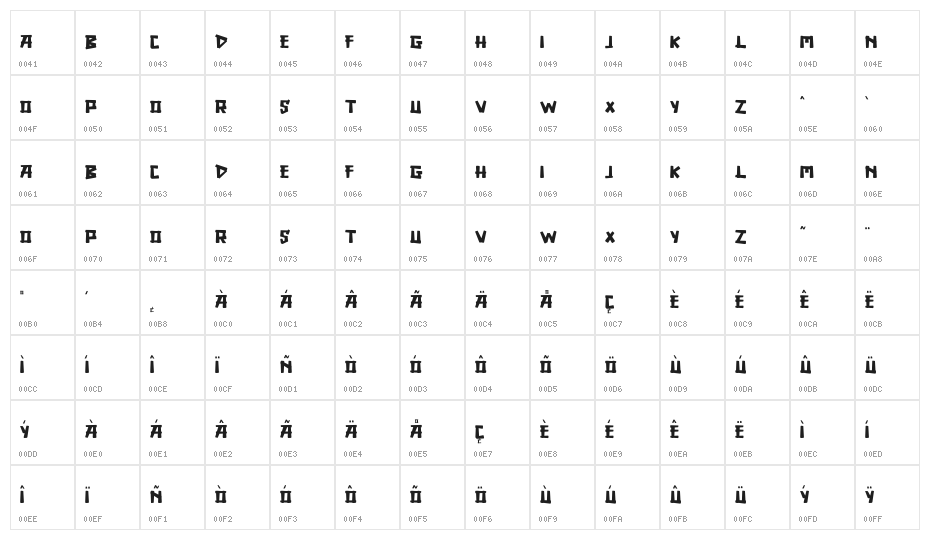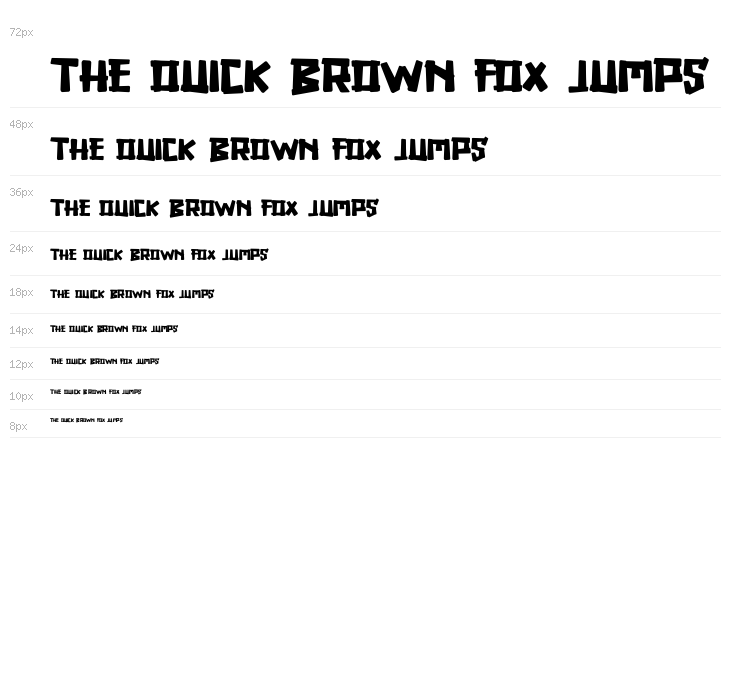
DINOCRAFT Font
DINOCRAFT Description
This font features a bold and rugged style, reminiscent of prehistoric themes. The characters are blocky with uneven edges, giving them a hand-carved appearance. The uppercase letters are prominent and impactful, making them suitable for attention-grabbing designs. The font's aesthetic is playful yet strong, ideal for projects that require a sense of adventure or a connection to nature. Its unique style makes it stand out, with each letter having a distinct personality that contributes to the overall theme.
| Proposed Projects | Ideal for children's book covers, adventure-themed posters, video game titles, and branding for outdoor or nature-related products. |